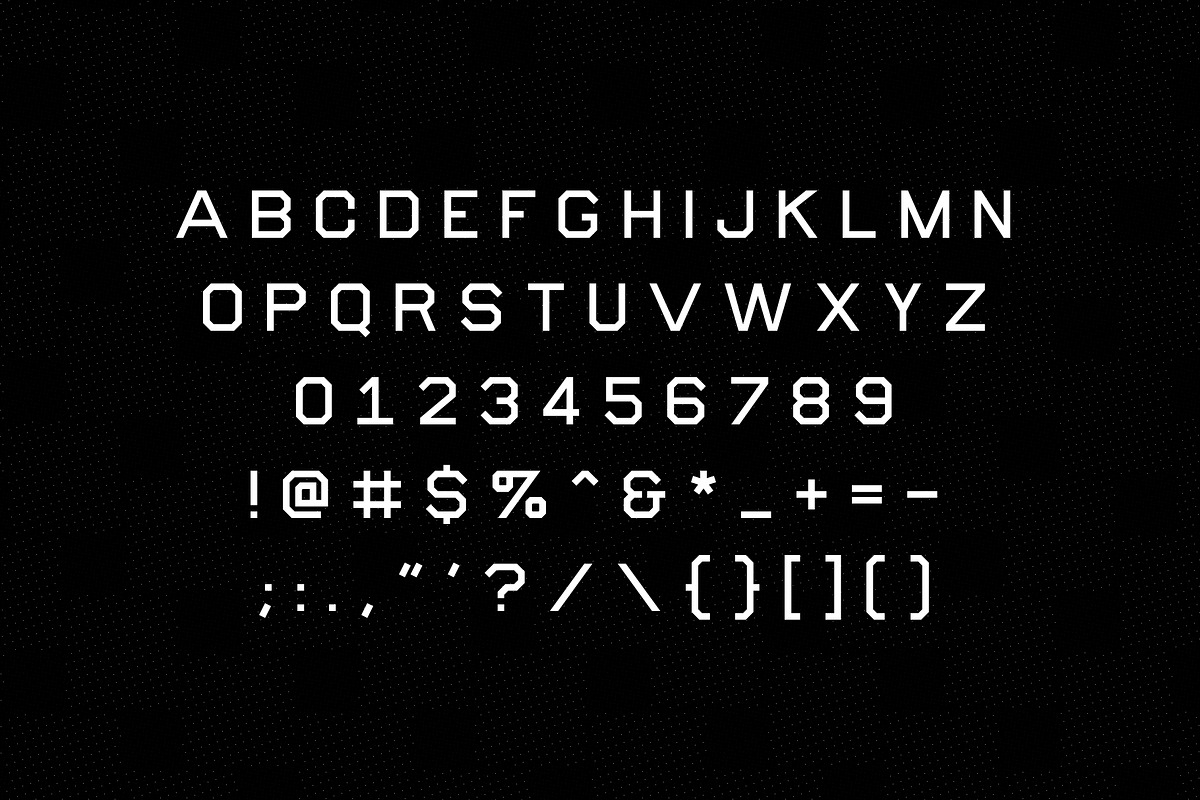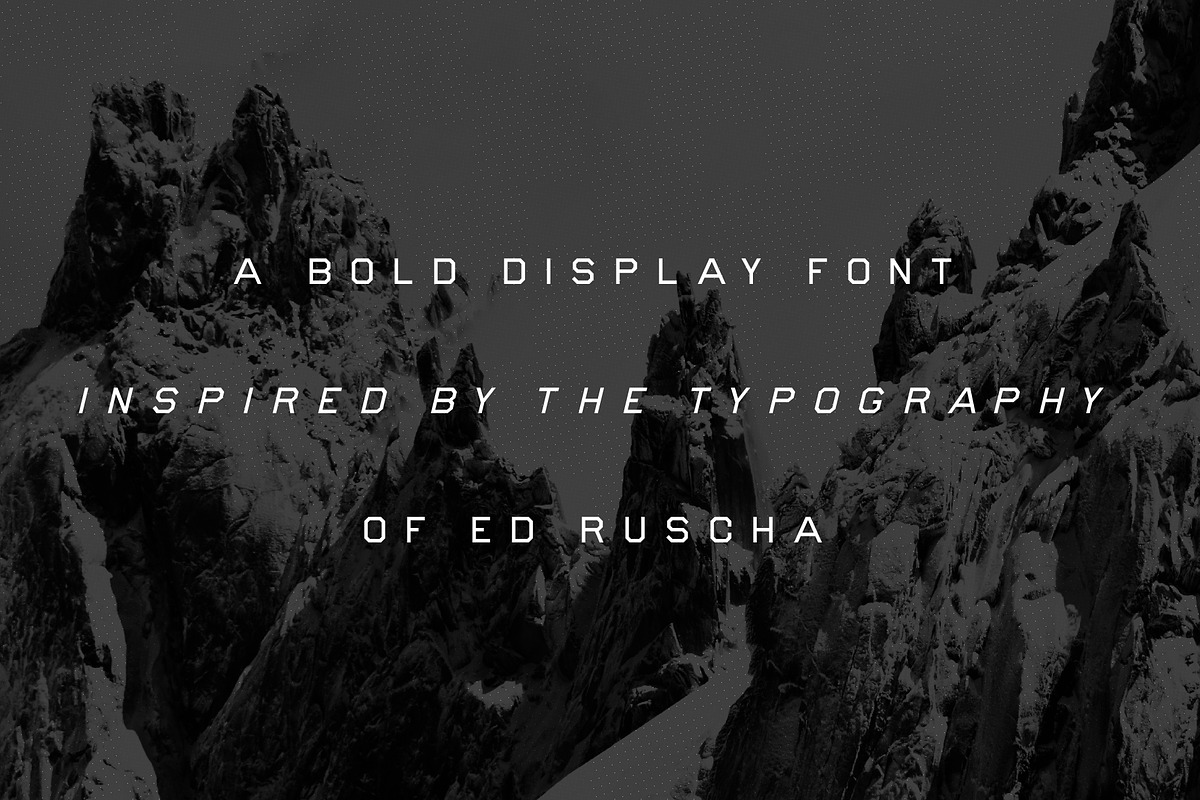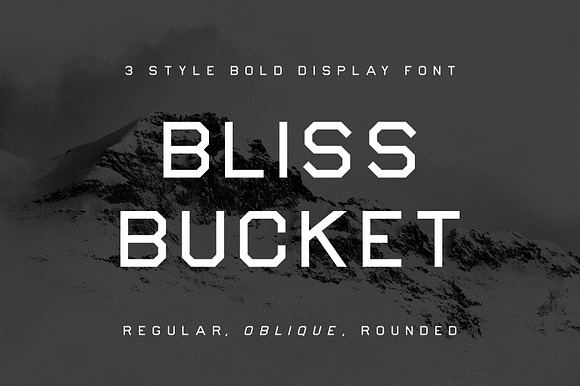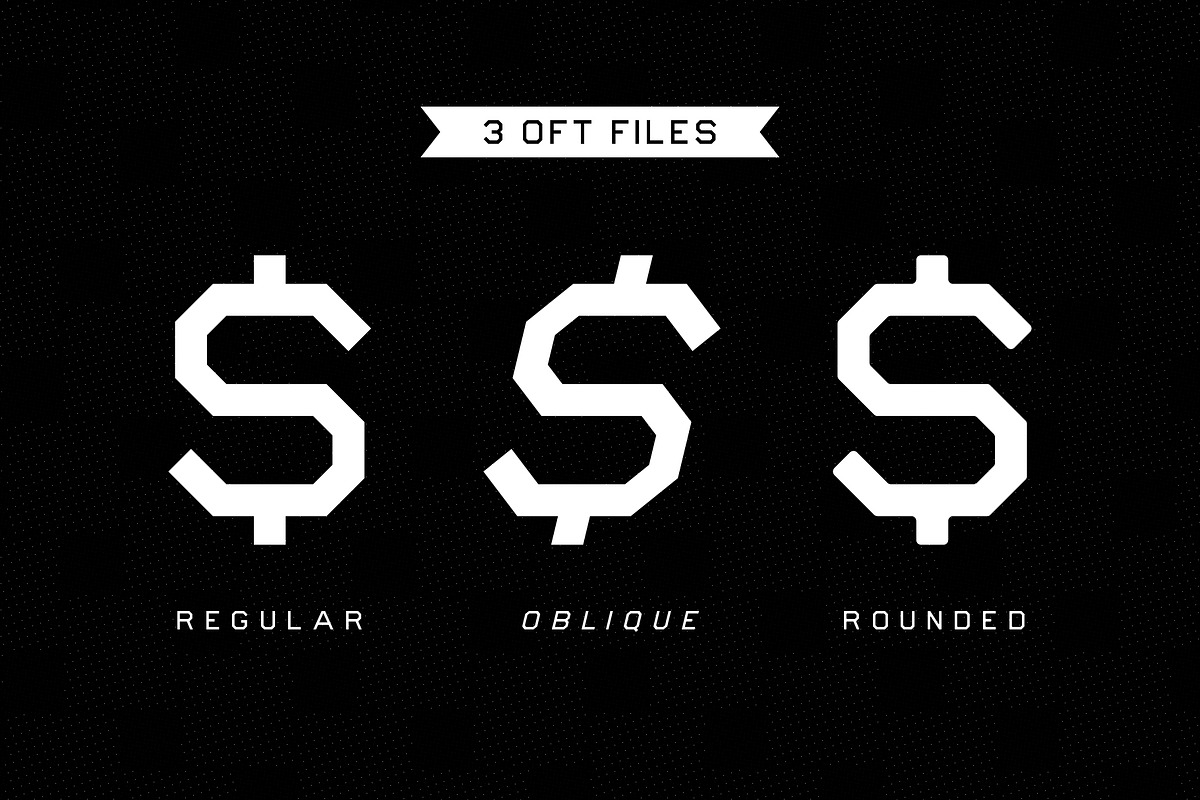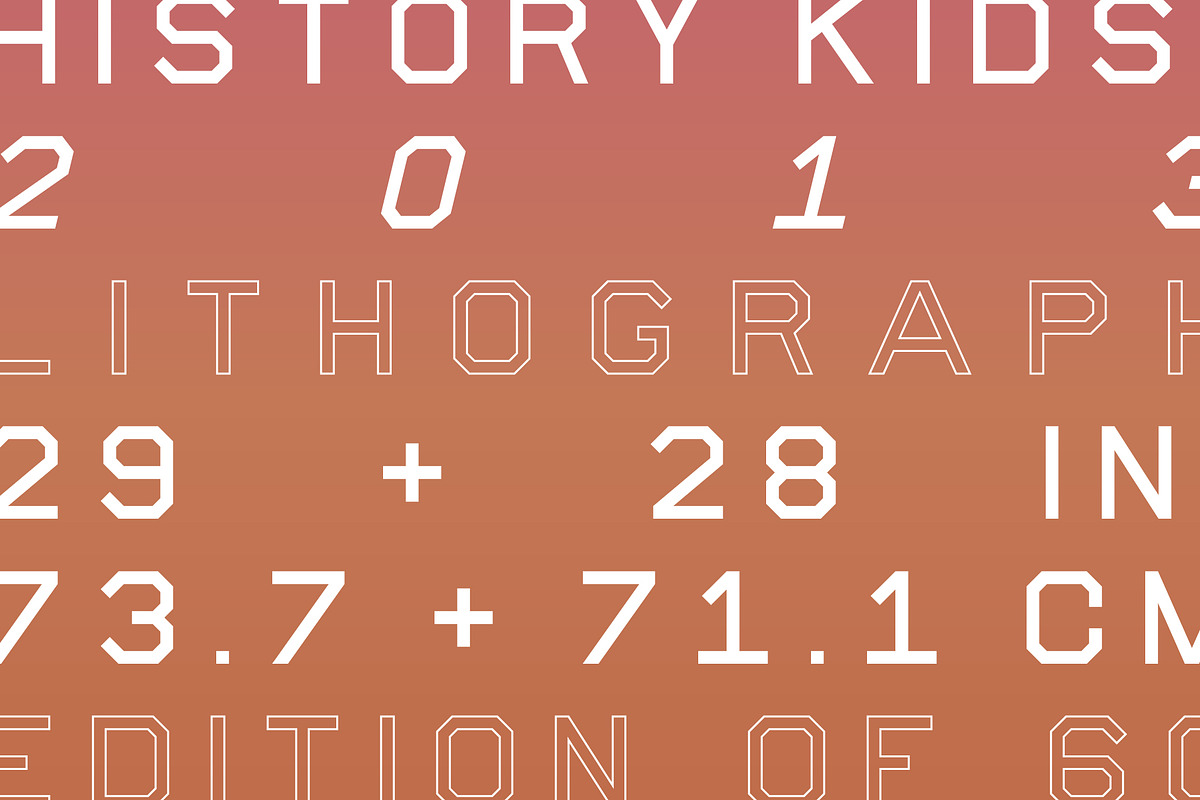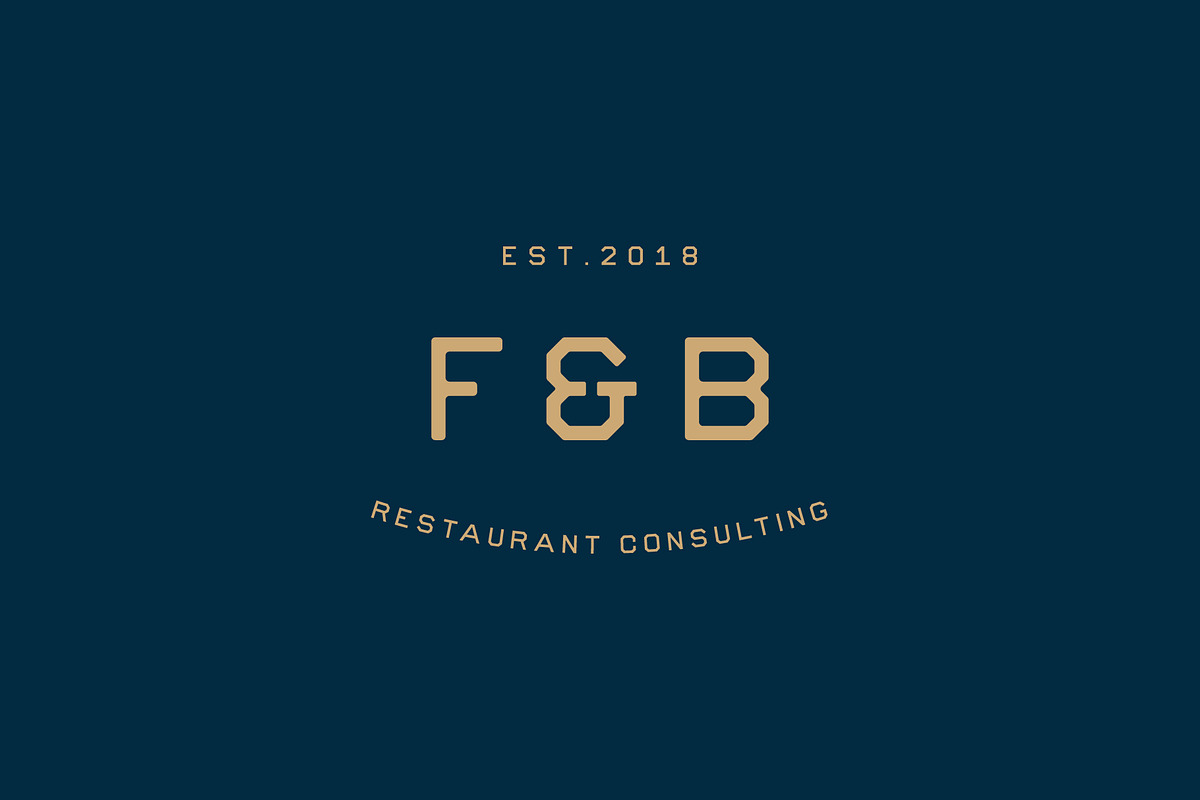
Bliss Bucket - Bold 3 Font Family
Bliss Bucket is a family of THREE sans serif display fonts inspired by the typography used in the art works of Ed Ruscha that communicates a strong and industrial look and feel. Bliss Bucket is an extremely versatile typeface family that is recommended to be used for logos, branding, magazine editorial headlines and digital web banners. An oblique version is included to add emphasis in title copy with a rounded version included to give that old school printing vibe.
- An oblique version is included to add emphasis in title copy with a rounded version included to give that old school printing vibe.